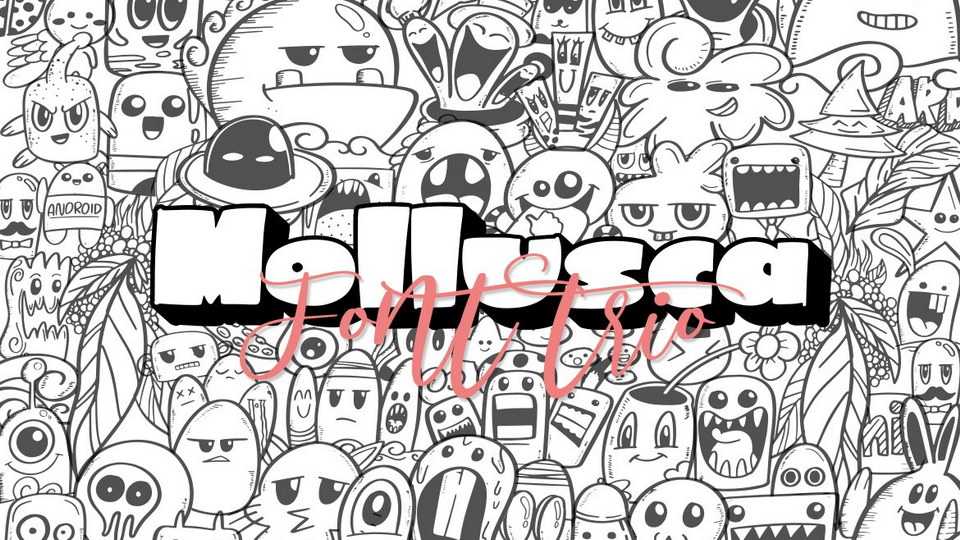
Download Mollusca font trio, a fun display, script and doodle fonts to make your outstanding design. Mollusca is very suited for your cartoony design, quotes, branding, packaging, comic, cute wallpaper, book cover, etc.